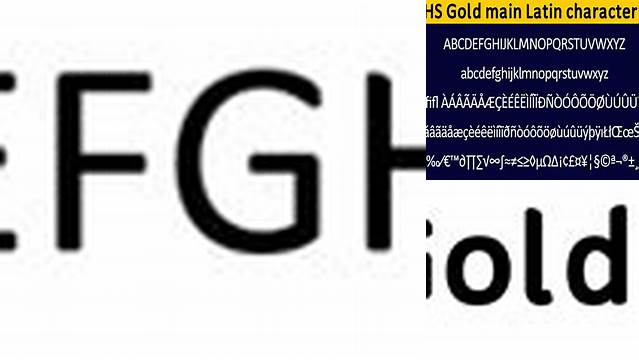
Hey guys, let's dive into the dazzling world of typography, focusing on the HS Gold Bold font! This font is a fantastic choice if you're looking to add a touch of elegance, sophistication, and a little bit of that Midas touch to your projects. Whether you're a seasoned designer or just starting out, getting your hands on this font is a breeze. We'll walk you through the free download process, explore how to use it effectively, and give you some insider tips on making your designs shine. So, buckle up, because we're about to unlock the golden gates of amazing typography!
Unleash Your Creativity: Using HS Gold Bold Effectively
Now for the fun part: putting the HS Gold Bold font to work! This font is perfect for projects where you want to convey a sense of luxury, sophistication, or a touch of glamour.
- Logos: The boldness of HS Gold Bold makes it an excellent choice for logos. Its strong presence ensures your brand name stands out and is memorable. The gold aspect can be used to convey ideas such as luxury and sophistication. Ensure the logo works well at different sizes. This will allow you to put the logo anywhere and make it versatile.
- Headlines and Titles: Use it for headlines, titles, and other display text to make a bold statement. The font's weight will instantly grab the reader's attention. Use it to communicate clearly, as this is crucial when it comes to grabbing attention and making a statement. When using the HS Gold Bold for titles, make sure it complements other fonts that you use in the rest of your content.
- Packaging: If you're designing packaging, HS Gold Bold can add a premium feel to your products. Consider using it for the product name or key features. Packaging is essential for setting a brand's image. The font is excellent for showcasing a certain type of product.
Final Thoughts: Embrace the Golden Touch